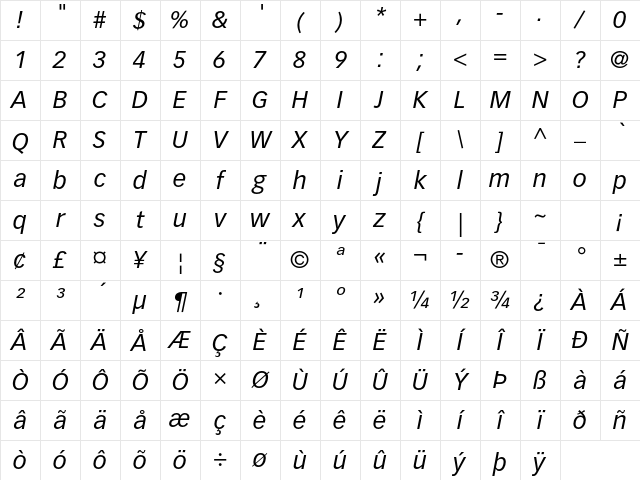
Vectora LT Std 56 Italic
Style: 56 Italic
Complete Vectora LT Std 56 Italic glyph index. Displaying only characters natively supported by Vectora LT Std 56 Italic font.
Design Context for Vectora LT Std
Vectora LT Std is a composed and adaptable typeface that performs quietly and consistently across a wide range of design contexts. The slanted form adds forward momentum and visual energy. Its slender proportions lend an understated elegance to any composition.